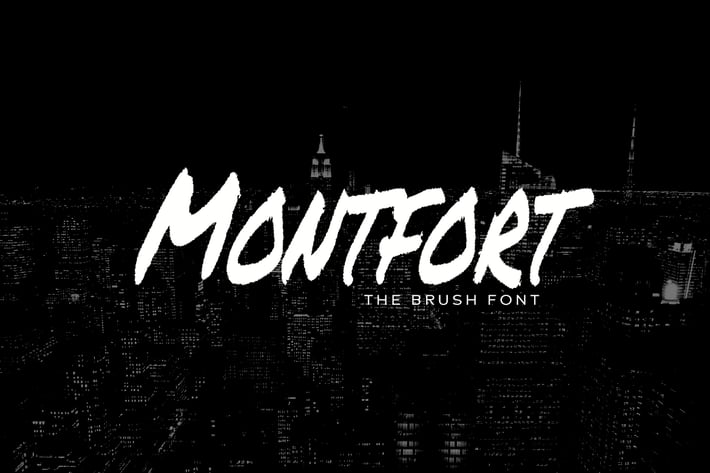
MONTFORT - Custom Handmade Brush Font
Beautifully handmade dry marker / brush font suitable for any design needs : branding, logos, handwritten quotes, product packaging, merchandise, blog design, modern advertising design, invitation, Art Quote, Home decor, Book/Cover Title, Invitation, special events, birthday, custom mug, pillow, t-shirts, any brush lettering needs and more.
This is a single weight font having all-caps along with small caps as lowercase letters. The pack contains OTF, TTF and Web Fonts (all EOT, SVG, TTF, WOFF, WOFF2 everything is included).